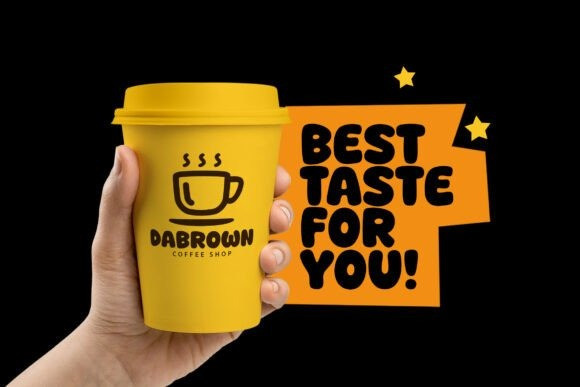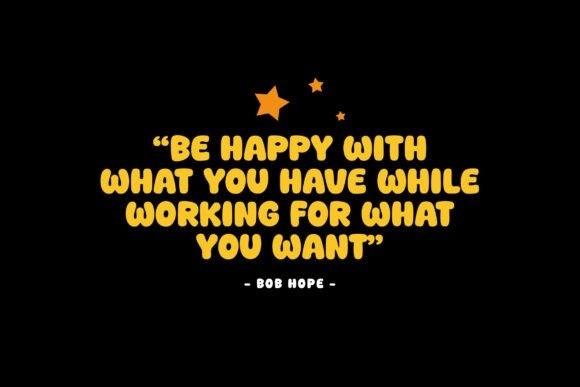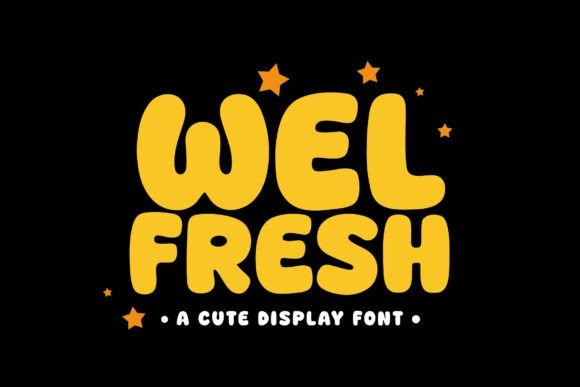
Welfresh Font
Welfresh Font is a charming, cute, and delightfully chunky display font that brings an immediate sense of fun, playfulness, and irresistible visual softness to any creative project.
This highly distinctive bubble display typeface features thick, rounded, balloon-like glyphs with no sharp edges, giving the Welfresh font a lovable, cartoonish aesthetic that is perfect for youthful and cheerful designs. It is the go-to font for anyone creating content for children, playful product packaging, vibrant social media posts, or sweet confectionery branding.
The bold, solid shape of the Welfresh font ensures maximum visibility and impact, making it ideal for large headings, fun posters, animated titles, and attention-grabbing event flyers. This cute typeface is guaranteed to generate smiles and is a must-have for anything requiring a dose of pure, bubbly joy.